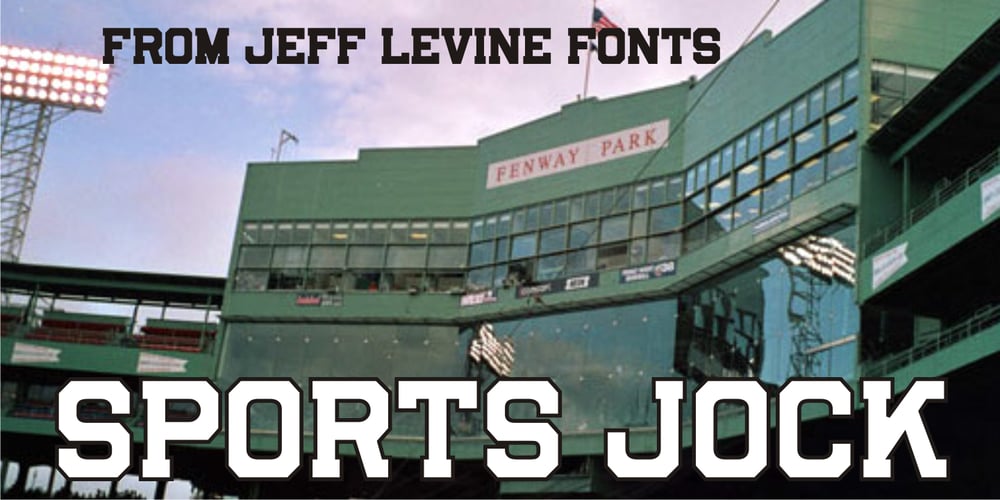
Sports Jock JNL
Sports Jock JNL font
Sports Jock JNL Font Family was designed by Jeff Levine and published by Jeff Levine. Sports Jock JNL contains 1 styles and family package options. Sports Jock JNL brings you a serif-style sports font built on the classic design of an early-1900s block font with chamfered angles.